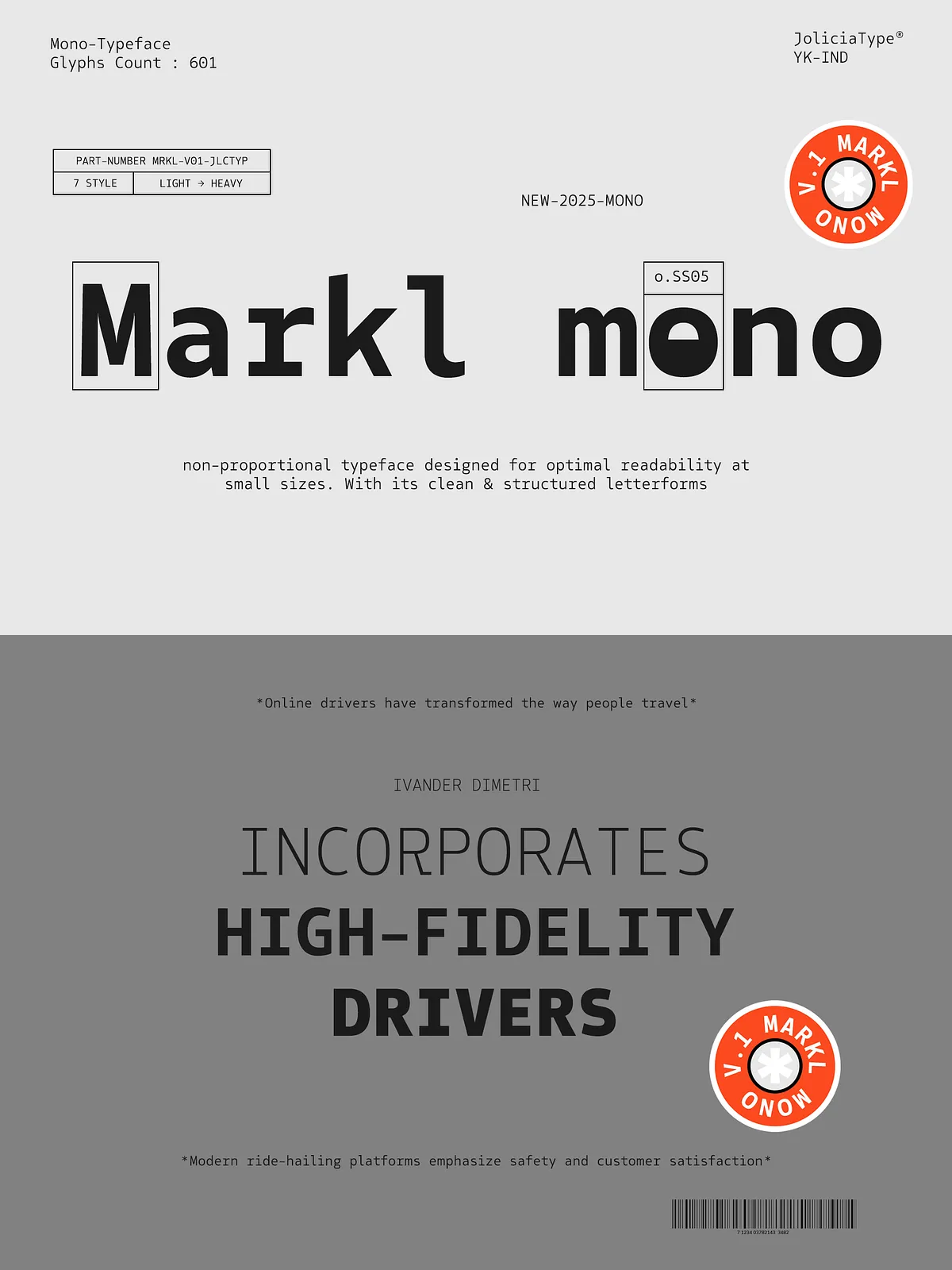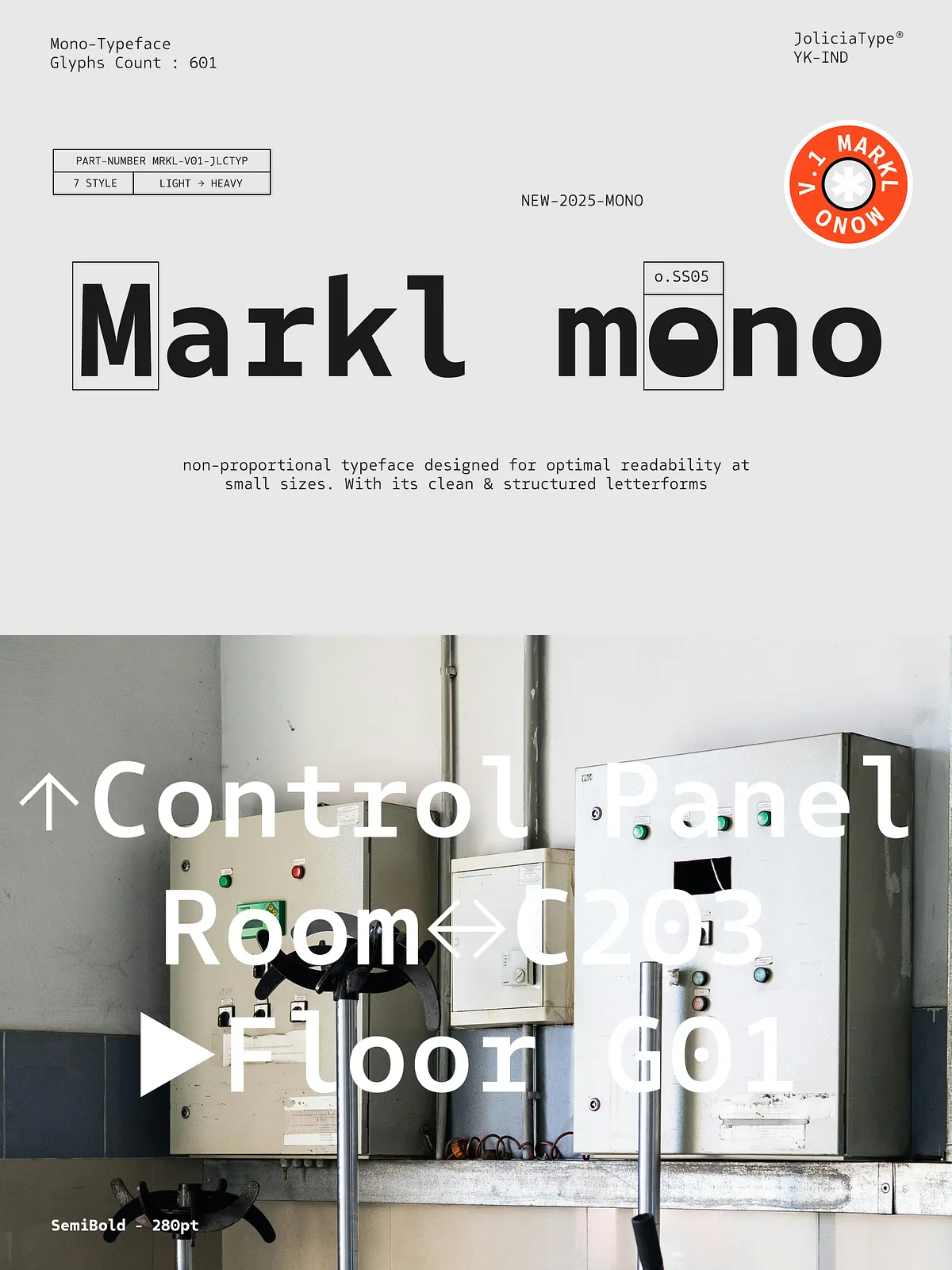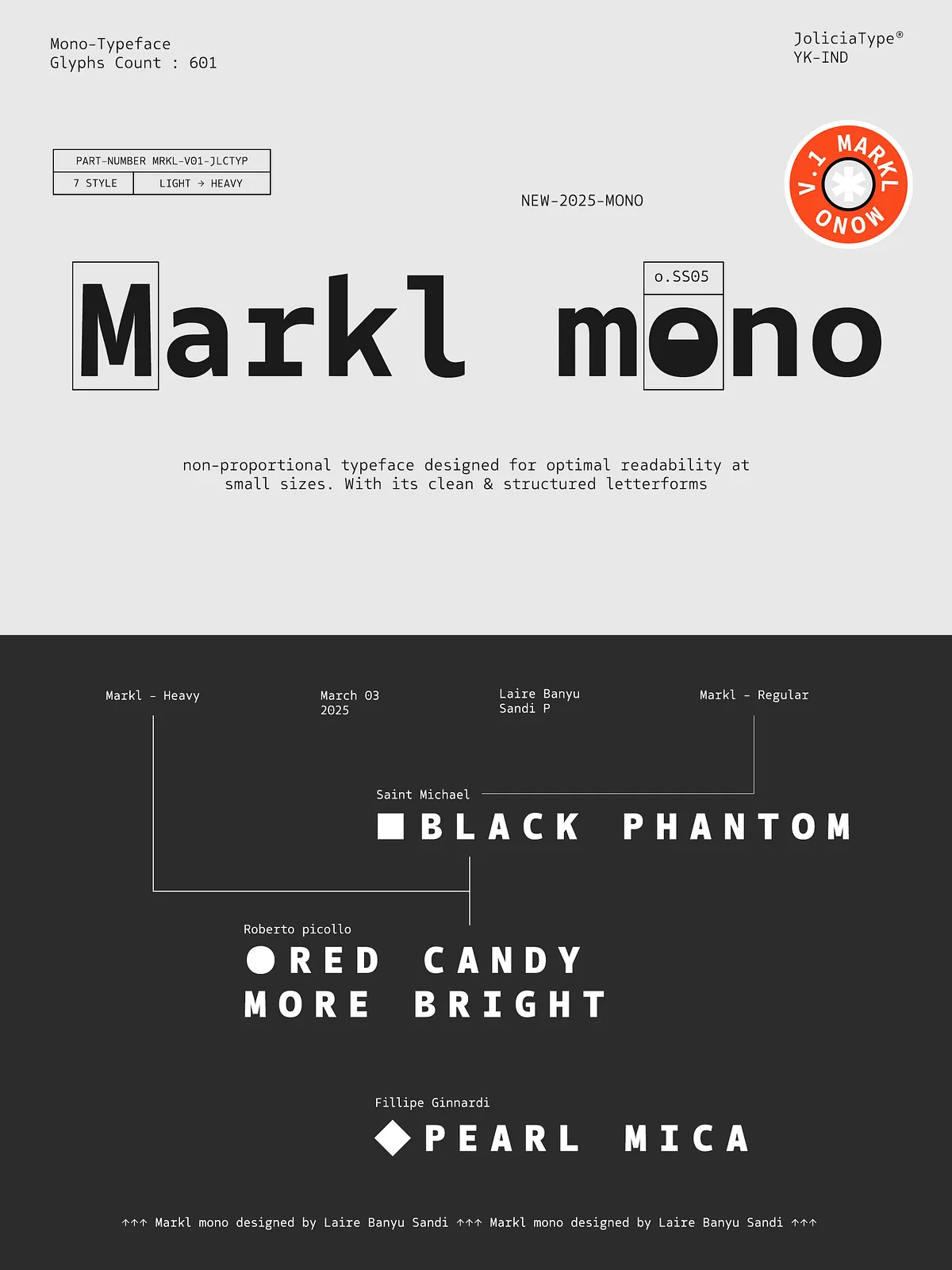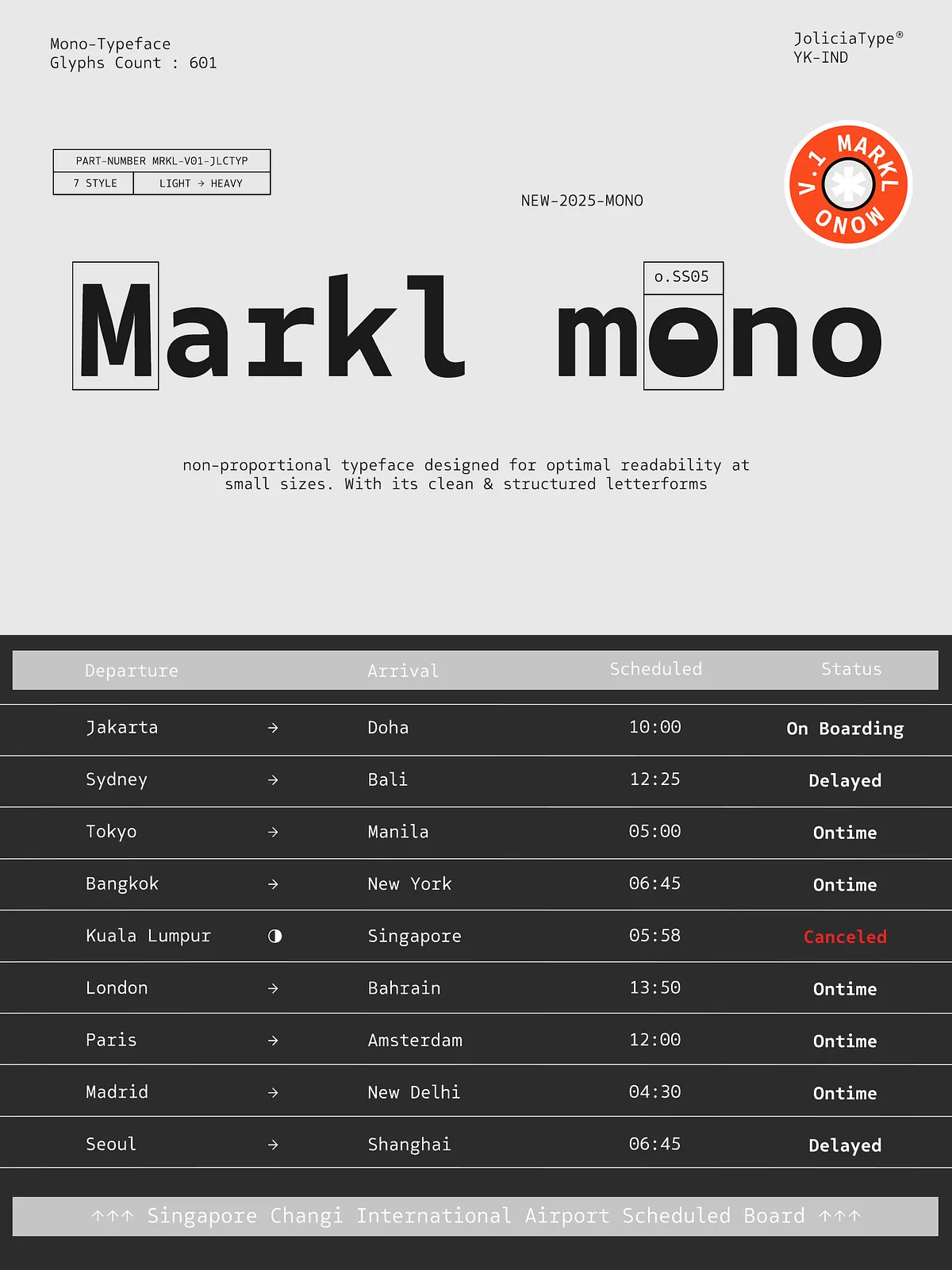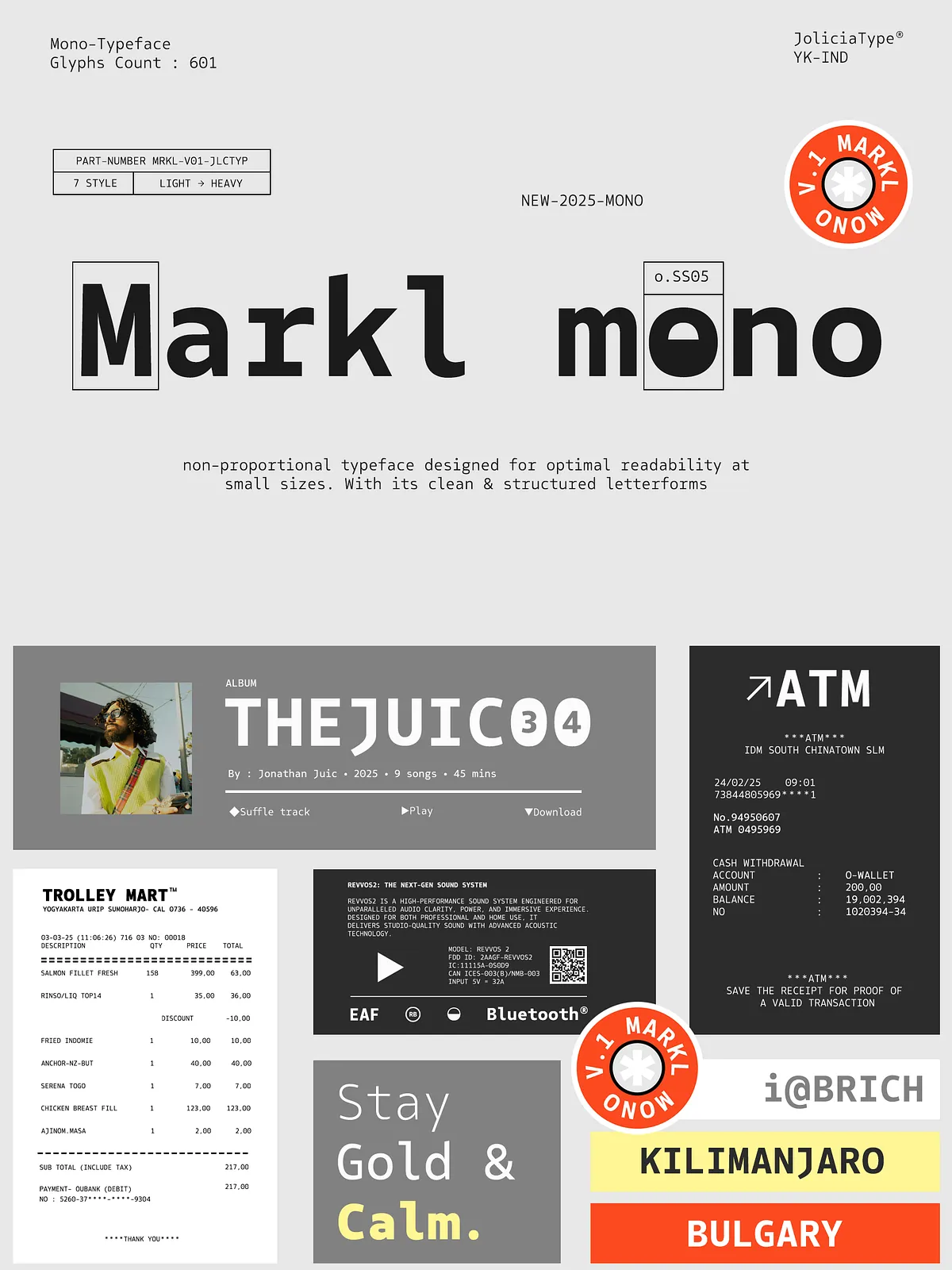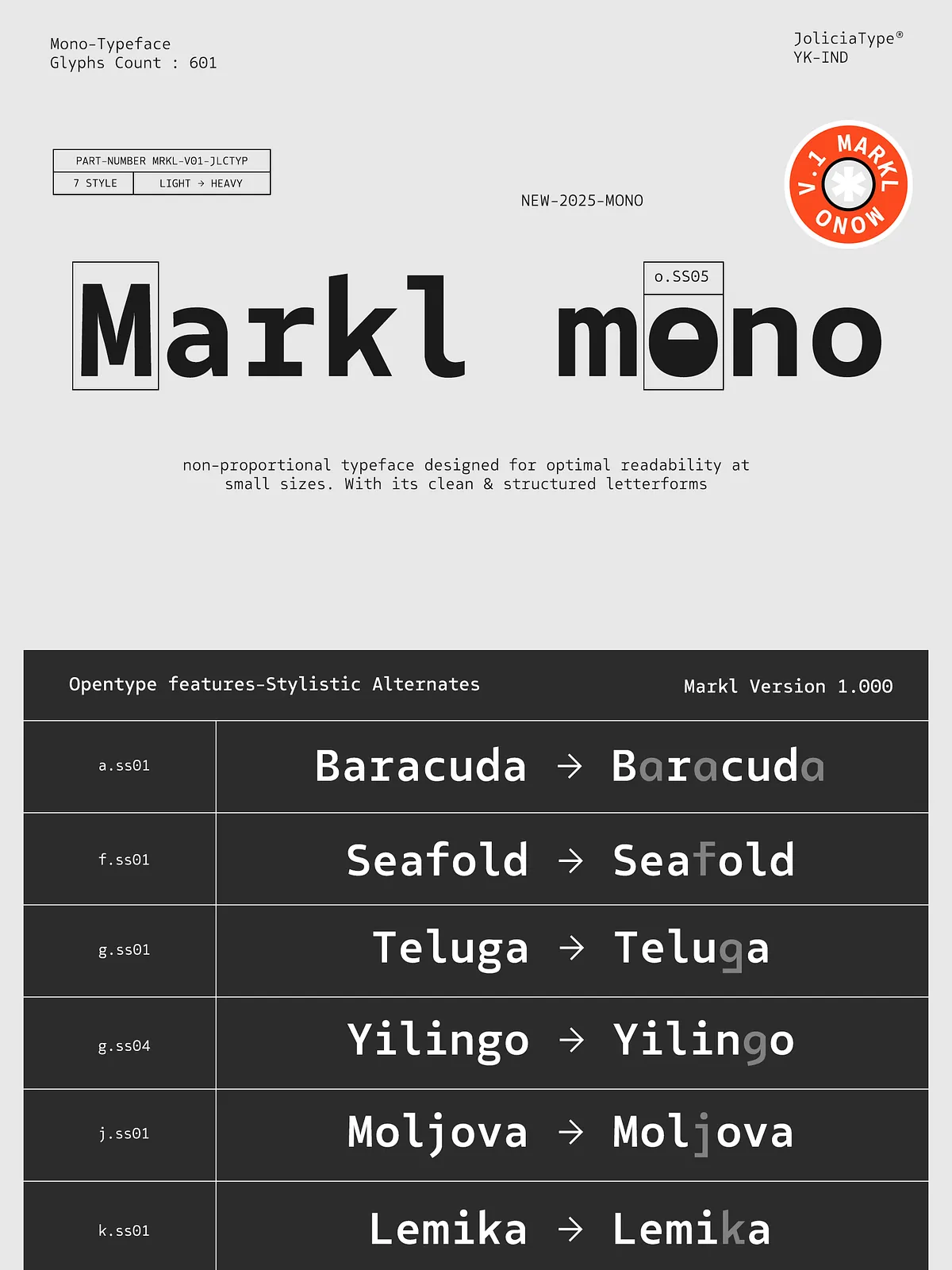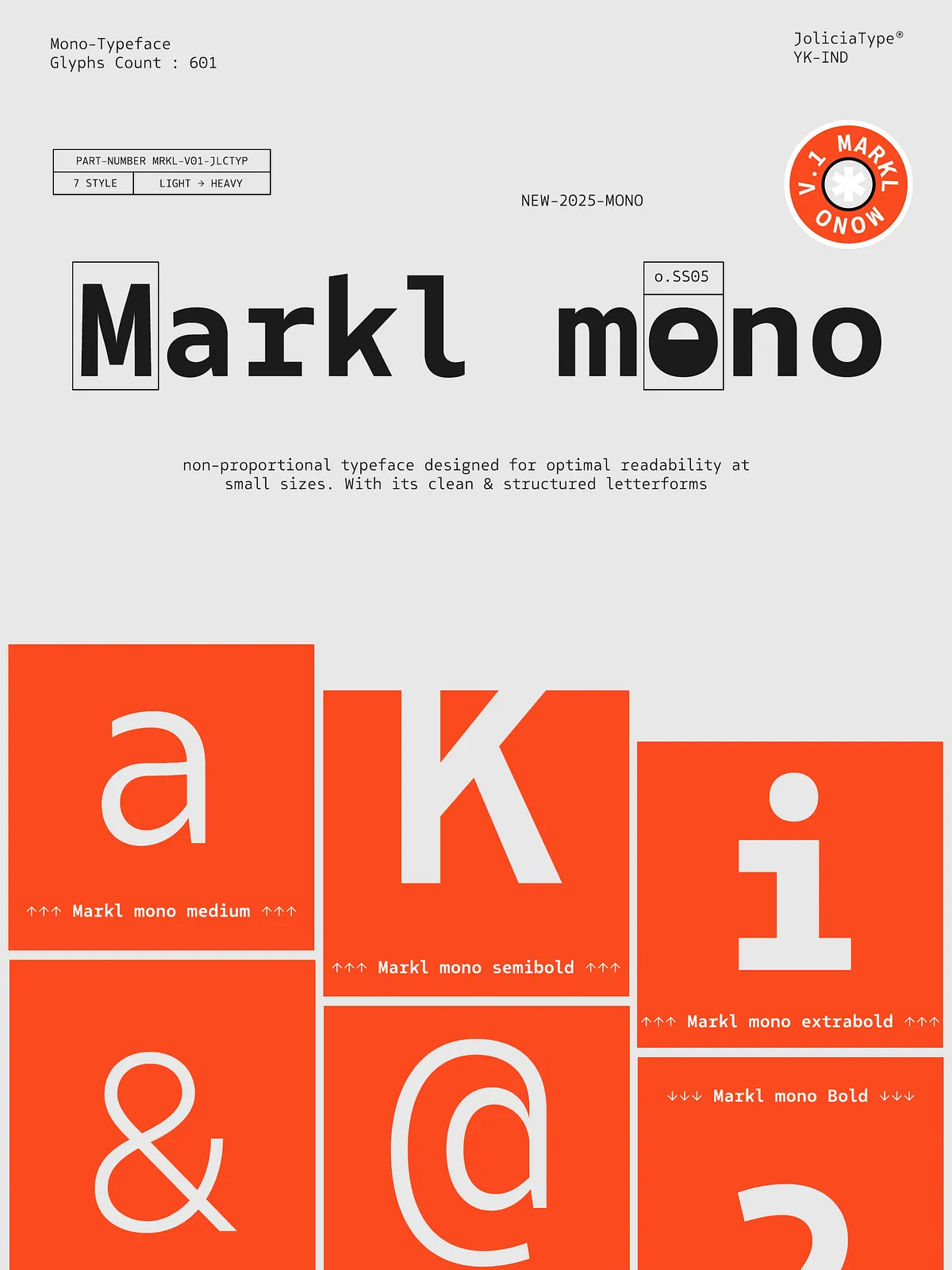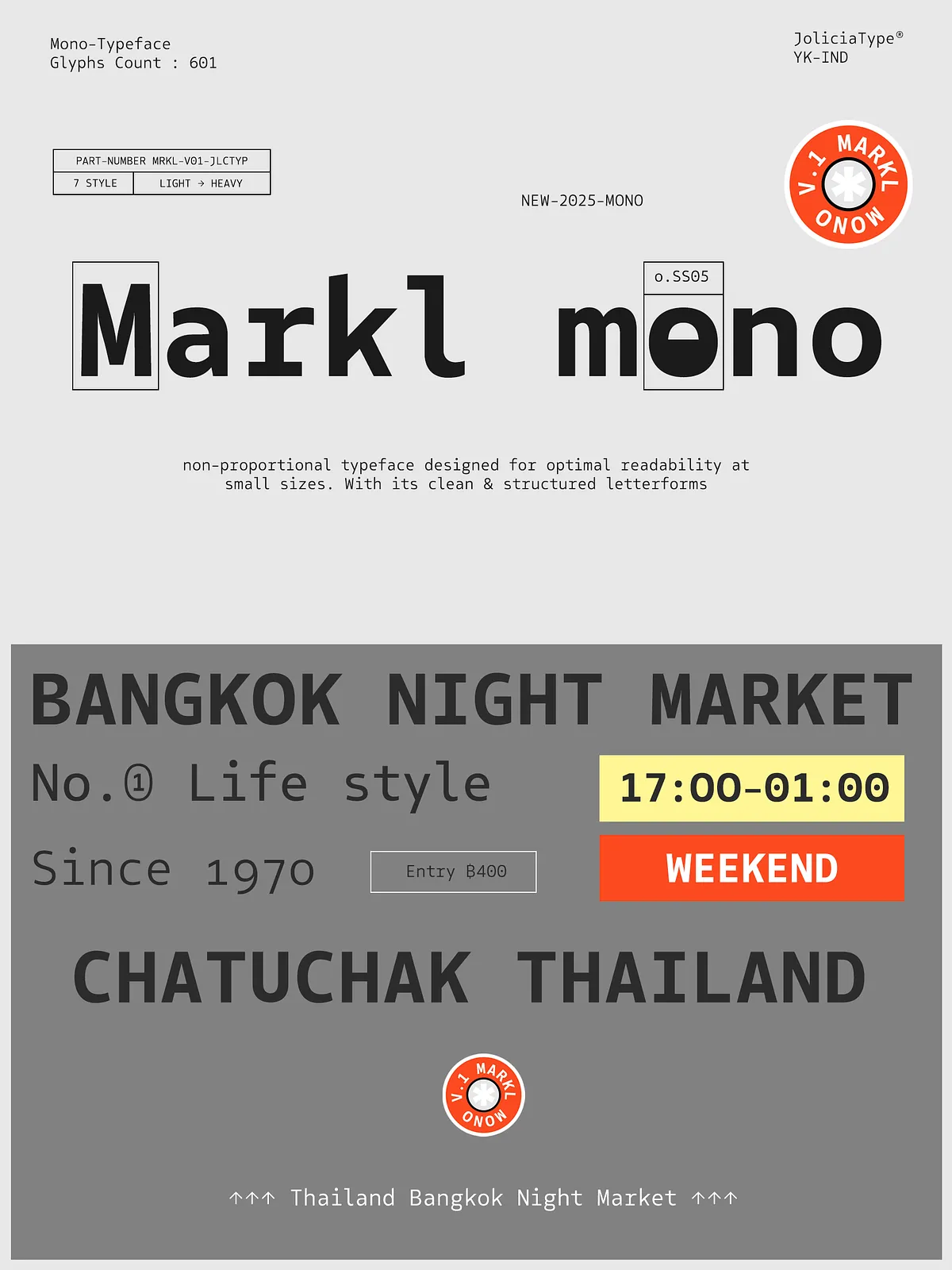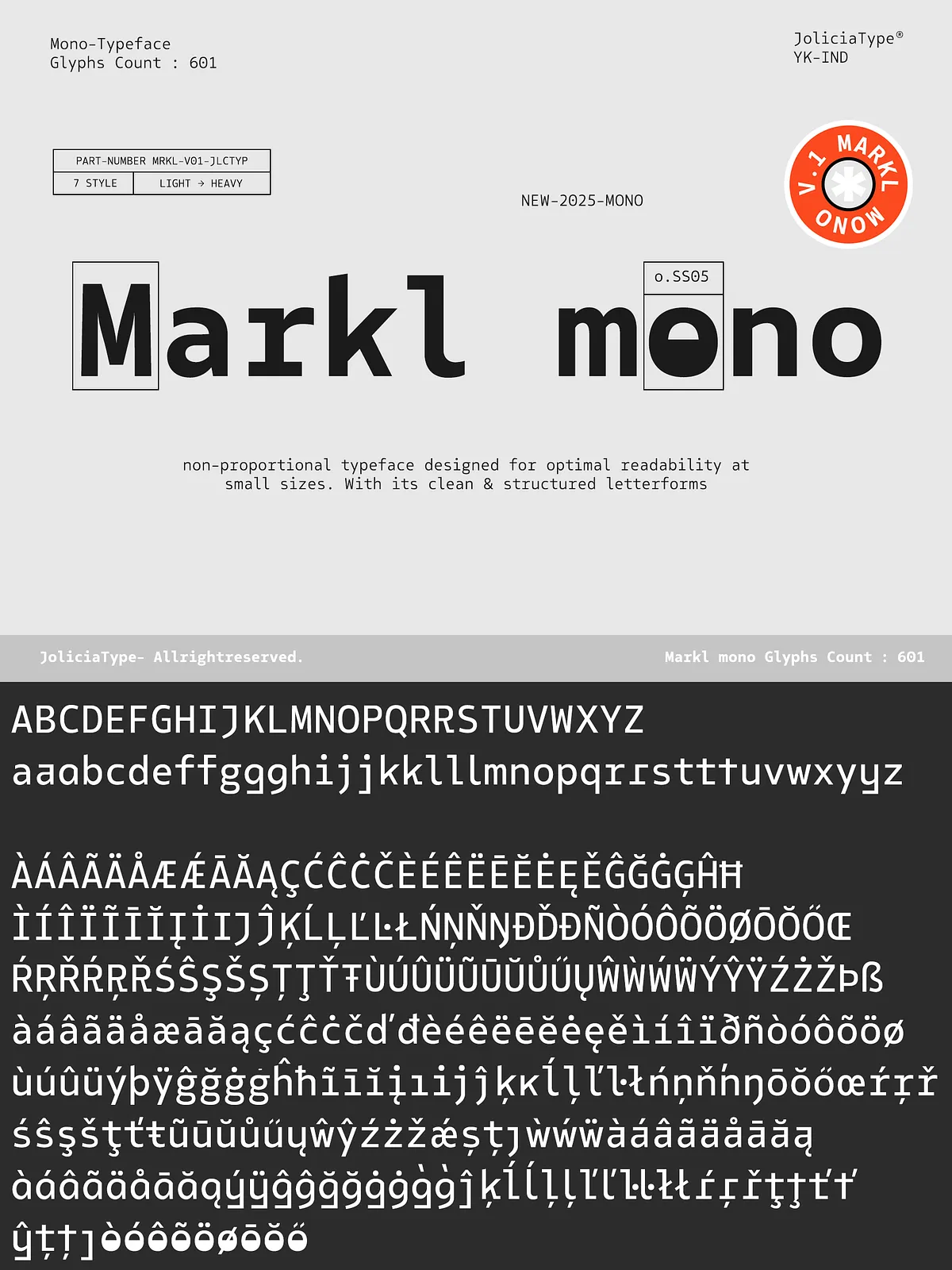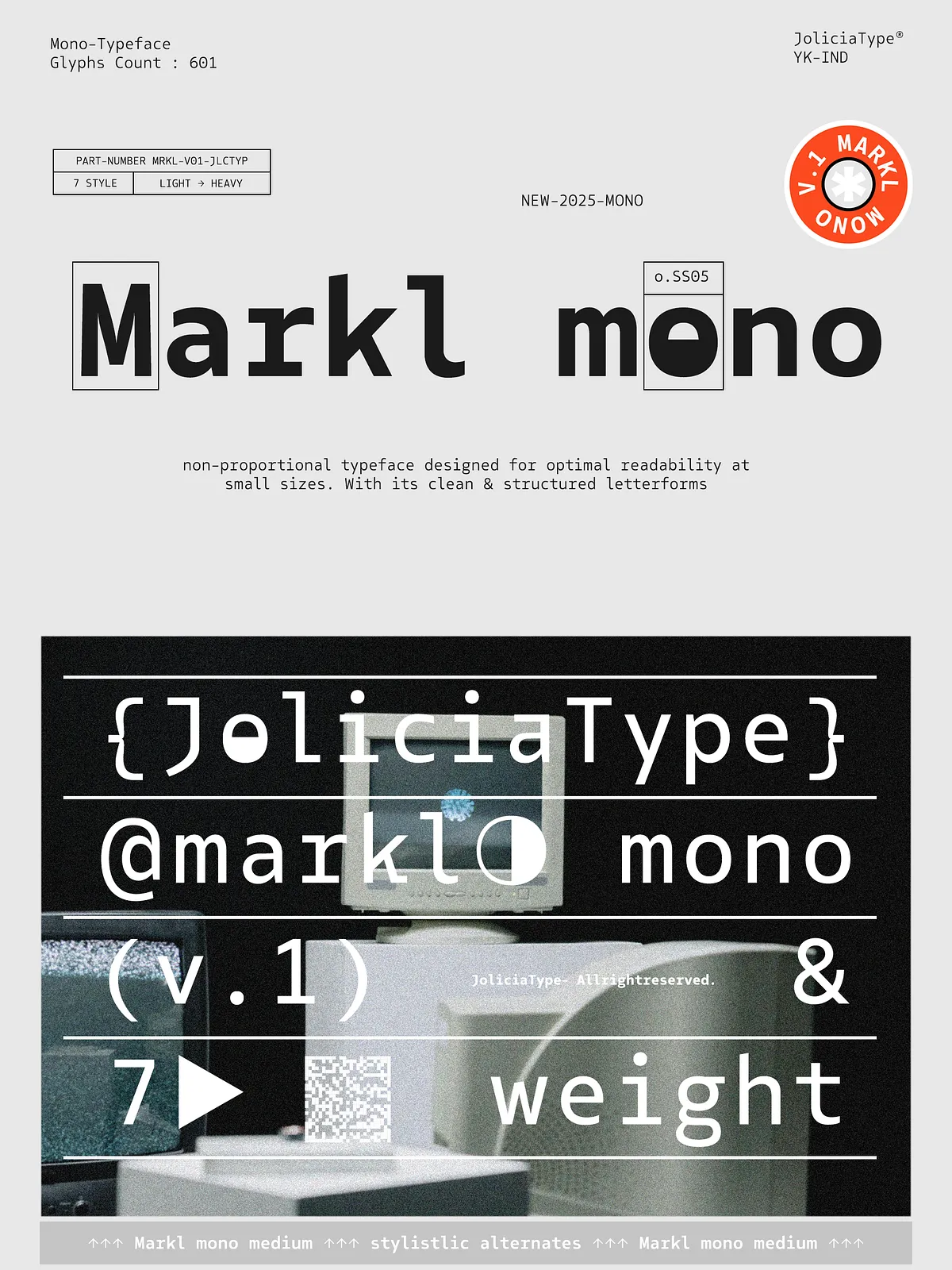
Markl Mono | Monospaced Font
Markl Mono is a non-proportional monospaced typeface engineered for precision and clarity. With seven distinct weights ranging from Light to Heavy, the family delivers a clean, balanced appearance that holds up at small sizes and in dense technical contexts. Designers and developers choose Markl Mono when readability, alignment, and a steady rhythm matter most.
Design & Readability
Non-Proportional Structure for Predictable Layouts
Because every character occupies the same horizontal space, Markl Mono enforces consistent column alignment and predictable metrics. This structural consistency improves legibility in code editors, tables, UI mockups, and tabular editorial formats. The face emphasizes open counters, neutral terminals, and moderate x-height to maintain clarity across sizes and weights.
Active Details That Aid Reading
Markl Mono balances technical restraint with thoughtful design: strokes remain steady, shapes avoid excessive contrast, and spacing flows with a measured rhythm. These active design choices reduce visual noise, helping readers scan lines quickly and accurately—especially in interfaces, documentation, and data-dense layouts.
Weights & Glyph Inventory
Seven Weights, Extensive Glyph Set
The family spans seven weights from Light to Heavy, enabling subtle typographic hierarchy without sacrificing alignment. Markl Mono includes a total of 601 glyphs, covering core Latin characters, numerals, punctuation, and extended symbols needed for professional applications. This breadth supports multilingual usage and technical notation without frequent fallbacks.
Alternate Characters & Access
Flexible Alternates for Design Control
Markl Mono ships with alternate glyphs for selected letters—R, a, f, g, j, k, l, r, t, y, and o—so you can tailor visual tone without switching type families. Use alternates to refine letter fit, improve rhythm in UI labels, or craft distinctive logotypes while keeping monospaced alignment intact.
Primary Use Cases
Where Markl Mono Excels
• Code editors and developer tooling — clear character shapes reduce ambiguity in common glyphs like l, 1, and I.
• UI and product interfaces — predictable metrics simplify alignment of labels, buttons, and data fields.
• Editorial and technical documentation — tabular data, tables of figures, and specs appear tidy and consistent.
• Design systems — the steady rhythm helps maintain visual order across components and screens.
Pairing Suggestions
Contrast with Sans and Serif Faces
Pair Markl Mono with a neutral sans-serif for body copy when you need a modern, clean interface. For editorial projects, combine it with a humanist serif to add warmth while preserving technical clarity. Use heavier weights of Markl Mono for headings in data-rich layouts to emphasize structure without losing alignment.